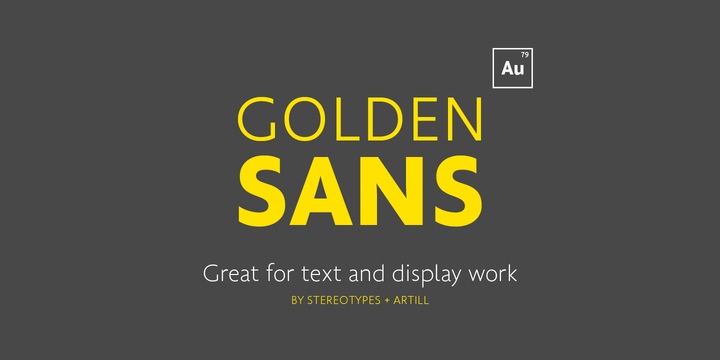
Gold Sans Font
Gold Sans Font is perfect for luxury financial services, premium investment firms, prestigious wealth management companies, exclusive private banking, high-end precious metals dealers, and elite financial consulting organizations. Its golden character makes it ideal for luxury jewelry brands, premium gold trading platforms, exclusive auction houses, sophisticated investment advisors, upscale financial institutions, and any project requiring golden prosperity with financial excellence and luxury wealth appeal.
This font is exciting because it embodies the ultimate expression of financial success and golden achievement while delivering exceptional functionality for organizations serving affluent clientele and exclusive financial markets. The luxuriously crafted letterforms radiate the confidence and prestige that comes with golden prosperity, creating typography that instantly communicates wealth, exclusivity, and the kind of premium financial services that successful individuals and organizations demand for their wealth management needs.
The Gold Sans Font family typically includes Light, Regular, Medium, and Bold weights with luxury alternates, golden ligatures, and premium elements that enhance its prestigious personality. This comprehensive collection enables financial professionals to create distinguished brand systems that maintain wealth credibility while offering flexibility for various luxury financial applications requiring both golden authority and contemporary high-end market positioning.
Whether you're developing identity systems for luxury wealth management firms, creating materials for exclusive financial services, or designing promotional content for premium investment organizations, Gold Sans Font Free Download delivers the golden prestige and financial sophistication that resonates with high-net-worth audiences seeking exclusive financial excellence and premium wealth services. Its luxurious presence ensures distinguished brand recognition across digital platforms and print materials, making it perfect for websites, mobile applications, and financial campaigns that celebrate golden success, exclusive wealth, and the transformative power of premium financial expertise with contemporary luxury standards and authentic golden excellence.